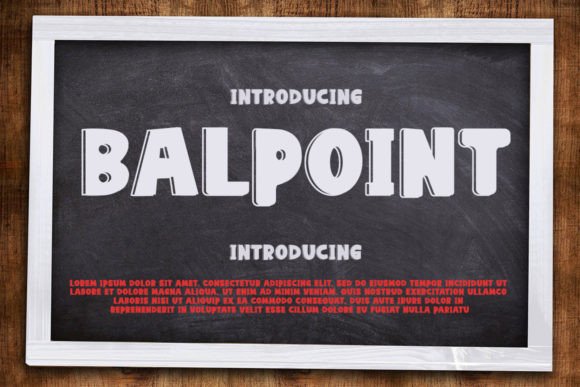
Prepare yourself to be captivated by Balpoint Font, the enchanting display font family that will transform your website menu into a mesmerizing masterpiece. Designed by the ingenious Mr. Soon Design, Balpoint is a whimsical and charming font that emanates an aura of pure delight.
With its quirky and sweet demeanor, Balpoint possesses an irresistible allure that will captivate your visitors from the very first glance. Its playful charm adds a touch of whimsy to formal projects, while its inherent sophistication lends itself effortlessly to informal settings.
Imagine your website menu adorned with the Balpoint font, each letter dancing gracefully across the screen, inviting your visitors on an unforgettable journey through your digital domain. The unique letterforms, reminiscent of a playful handwritten note, create a sense of warmth and approachability that will leave a lasting impression.
Balpoint's versatility knows no bounds, making it the perfect choice for a wide range of projects. Its playful nature lends itself beautifully to invitations, greeting cards, posters, and social media graphics. Its elegant curves add a touch of sophistication to logos, branding materials, and website headers.
But it's not just the aesthetics that make Balpoint so remarkable. This font is incredibly easy to read, even at small sizes, ensuring that your website menu remains accessible and user-friendly. Its crisp lines and clear letterforms ensure that your visitors can navigate your site seamlessly, finding the information they need with effortless ease.
So why settle for ordinary when you can embrace the extraordinary? Choose Balpoint Font and let your website menu bloom with creativity, charm, and an abundance of personality. Its playful spirit will infuse your digital presence with a sense of joy that will leave your visitors smiling and eager to explore more.